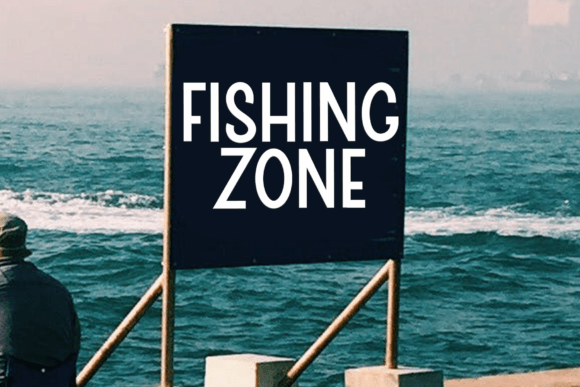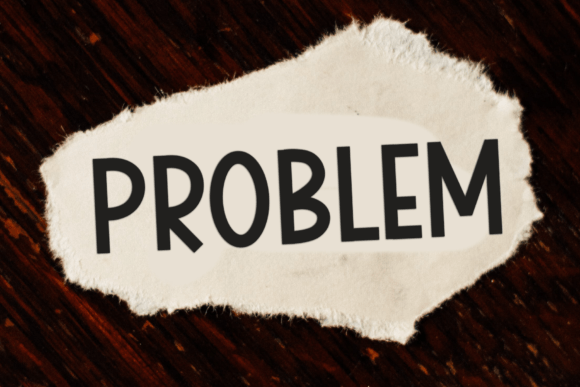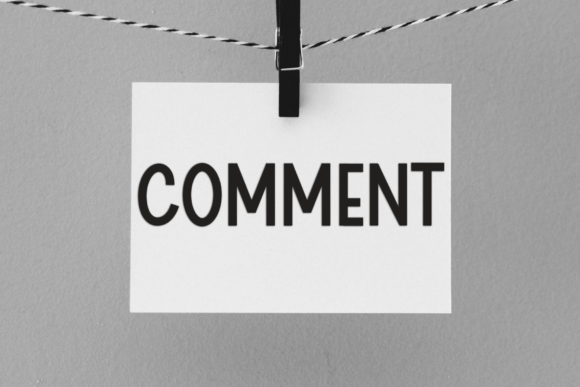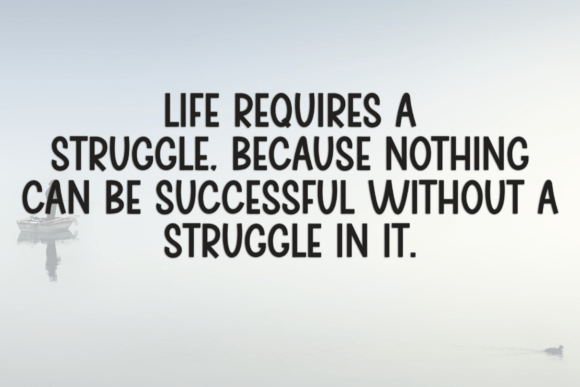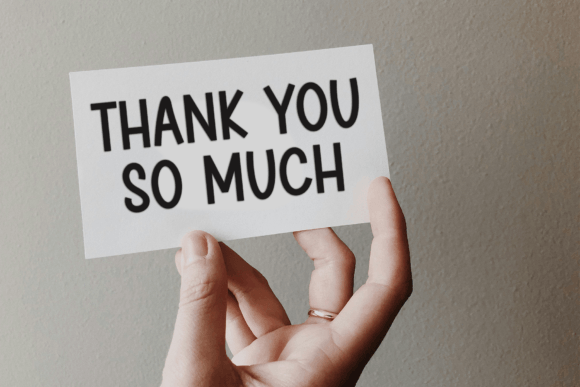
Happy Fishing Font: A Charming Sans-Serif Font for Your Design Projects
Are you looking for a font that can add a touch of freshness and casual elegance to your design projects? Look no further than the Happy Fishing font. This charming sans-serif font is perfect for designers and crafters who want to create visually appealing and engaging designs. In this article, we’ll explore the features and benefits of the Happy Fishing font and how you can use it to elevate your design projects.
What is Happy Fishing Font?
Happy Fishing is a sans-serif font that is imbued with a sense of freshness and casual elegance. Its fluid strokes and organic lines evoke a laid-back vibe, making it perfect for various design projects. The font is designed to be highly legible and versatile, making it suitable for use in a wide range of applications, from branding and invitations to social media graphics and more.
Key Features of Happy Fishing Font
The Happy Fishing font has several key features that make it an excellent choice for designers and crafters. Some of its notable features include:
- Fluid Strokes: The font features fluid strokes that give it a smooth and elegant look.
- Organic Lines: The font’s organic lines add a touch of warmth and personality to your designs.
- Laid-Back Vibe: The font’s laid-back vibe makes it perfect for designs that require a casual and relaxed feel.
- High Legibility: The font is highly legible, making it suitable for use in a wide range of applications.
- Versatility: The font is versatile and can be used in various design projects, from branding and invitations to social media graphics and more.
Benefits of Using Happy Fishing Font
There are several benefits to using the Happy Fishing font in your design projects. Some of the benefits include:
- Unique Look: The font’s unique look and feel can help your designs stand out from the crowd.
- Elegant and Fresh: The font’s elegant and fresh design can add a touch of sophistication to your designs.
- Easy to Read: The font’s high legibility makes it easy to read, even at small sizes.
- Versatile: The font’s versatility makes it suitable for use in a wide range of applications.
How to Use Happy Fishing Font in Your Design Projects
The Happy Fishing font can be used in a wide range of design projects, including:
- Branding: Use the font to create a unique and memorable brand identity.
- Invitations: Use the font to create beautiful and elegant invitations for special occasions.
- Social Media Graphics: Use the font to create engaging and visually appealing social media graphics.
- Packaging: Use the font to create eye-catching and effective packaging designs.
Tips for Getting the Most Out of Happy Fishing Font
Here are some tips for getting the most out of the Happy Fishing font:
- Experiment with Different Sizes: Experiment with different font sizes to find the one that works best for your design.
- Pair with Other Fonts: Pair the Happy Fishing font with other fonts to create a unique and visually appealing design.
- Use in Combination with Images: Use the font in combination with images to create a visually appealing design.
- Keep it Simple: Keep your design simple and clean to ensure that the font is the focal point.
The Happy Fishing font is a charming sans-serif font that is perfect for designers and crafters who want to add a touch of freshness and casual elegance to their design projects. Its fluid strokes and organic lines evoke a laid-back vibe, making it perfect for various design projects. With its high legibility and versatility, the Happy Fishing font is an excellent choice for a wide range of applications. By following the tips outlined in this article, you can get the most out of the Happy Fishing font and create visually appealing and engaging designs.